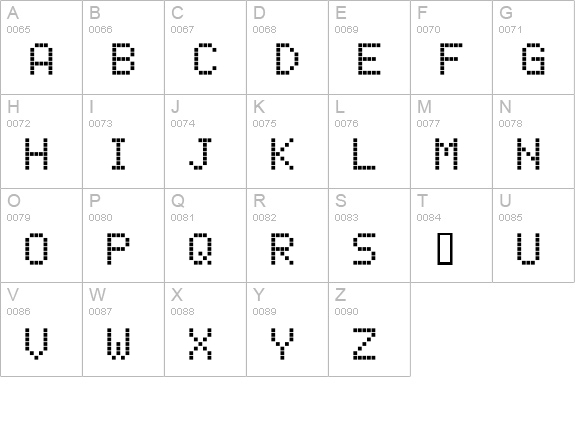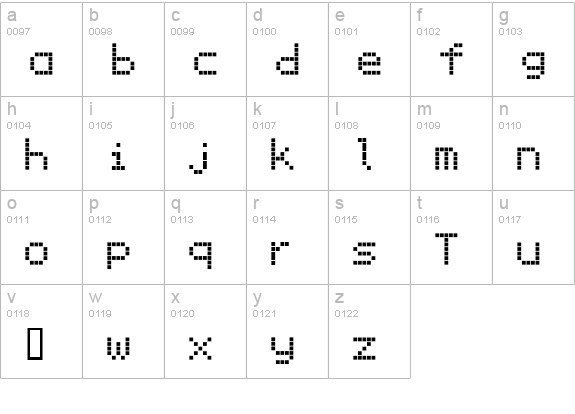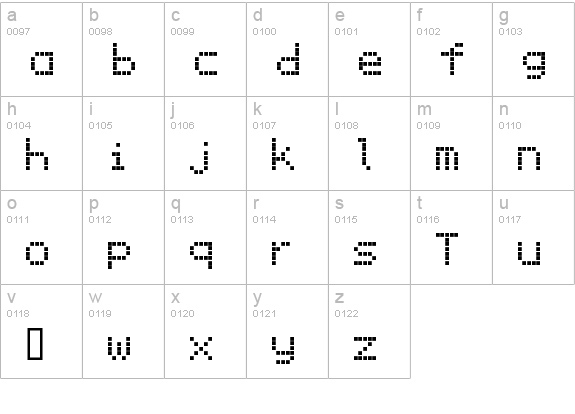
DisplayMonoB Font Details
DisplayMonoB is a sleek and modern monospaced font that is perfect for a wide range of design projects. Its clean lines and sharp angles give it a professional and sophisticated look, making it ideal for both digital and print applications. Whether you're creating a website, designing a logo, or working on a poster, DisplayMonoB is sure to make your text stand out. Best of all, DisplayMonoB is completely free to download at FontsMarket.com. This means that you can add this stylish font to your collection without breaking the bank. Don't miss out on the opportunity to elevate your design work with DisplayMonoB's unique and eye-catching aesthetic. Download it now and start using it in your projects today!